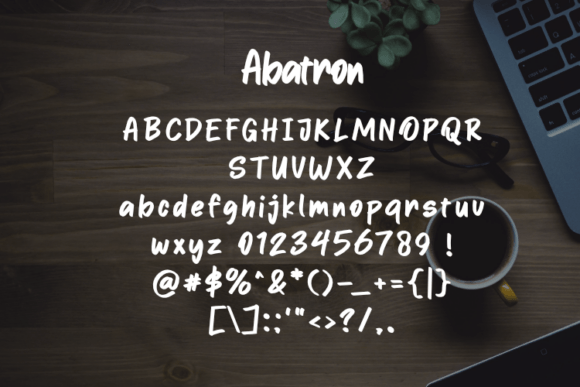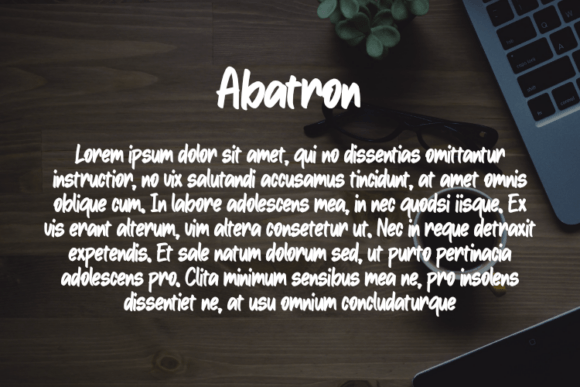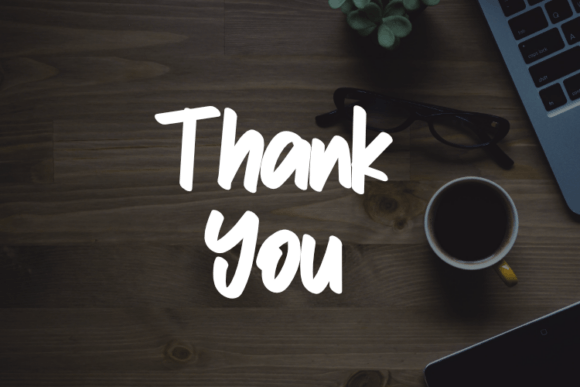
Unveiling Abatron: The Ultimate Font for Creative Designers and Crafters
In the world of design, typography plays a crucial role in conveying messages, evoking emotions, and creating visual identities. For designers, crafters, and artists, finding the perfect font can be a daunting task. However, with Abatron Font, your search is over. This engaging typeface is meticulously crafted for clothing design, t-shirt artistry, and a myriad of other creative projects, offering unparalleled versatility and compatibility.
The Birth of Abatron
Abatron Font is designed with creativity and functionality in mind. Its unique design ensures that it stands out in any design setting, making it an ideal choice for designers looking to give their projects a distinctive edge. Whether you’re working on a t-shirt design, crafting a logo, or brainstorming ideas for your next big project, Abatron is the perfect companion.
Versatility at Its Core
One of the key features that set Abatron apart is its incredible versatility. This font is not limited to specific design applications; it can be seamlessly integrated into any project, regardless of the software or platform you’re using. From digital designs to print materials, Abatron adapts effortlessly, ensuring that your creative vision is realized without any technical hiccups.
Unlocking Limitless Design Potential
Abatron is more than just a font; it’s a key to unlocking your limitless design potential. With its unique character and flexibility, Abatron empowers you to push the boundaries of creativity. Imagine being able to craft stunning t-shirt designs, create compelling logos, or develop captivating branding materials with ease and finesse. Abatron makes this a reality, providing a solid foundation for your creative projects.
Why Choose Abatron?
- Unique Design: Stand out with a font that is both stylish and distinctive.
- Versatility: Suitable for a wide range of projects, from clothing design to digital art.
- Limitless Potential: Unleash your creativity and bring your design visions to life.
Dive into the World of Abatron
If you’re ready to elevate your designs and take your creativity to new heights, it’s time to dive into the world of Abatron. This exceptional font is not just a tool; it’s a partner in your creative journey. By choosing Abatron, you’re not just selecting a typeface; you’re gaining access to a world of design possibilities.
In conclusion, Abatron Font is a game-changer for designers and crafters looking to make a statement with their work. Its unique design, versatility, and compatibility make it an indispensable asset in any creative arsenal. Whether you’re a professional designer or a hobbyist crafter, Abatron offers the perfect blend of style, functionality, and convenience. So why wait? Unlock your design potential with Abatron and give your projects the edge they deserve.